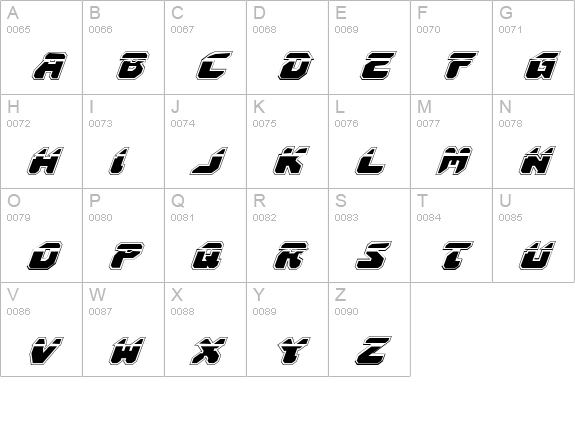
Astropolis Laser Academy Italic is a distinctive, italic variant in the Astropolis typeface family \xE2\x80\x94 well suited to design and typography projects.
Astropolis Laser Academy Italic font is a futuristic and sleek typeface that exudes a sense of advanced technology and innovation. Its sharp, laser-like strokes convey a sense of precision and modernity, making it perfect for projects that require a cutting-edge aesthetic. This font is freely available to download at FontsMarket.com, allowing designers and creatives to easily access this unique typeface for their projects. With its italic style, Astropolis Laser Academy adds a dynamic and bold touch to any design, making it stand out and capture attention. Whether used for branding, advertising, or digital media, Astropolis Laser Academy Italic font brings a sense of sophistication and forward-thinking to any project. Download it today and elevate your designs with this striking and modern typeface.